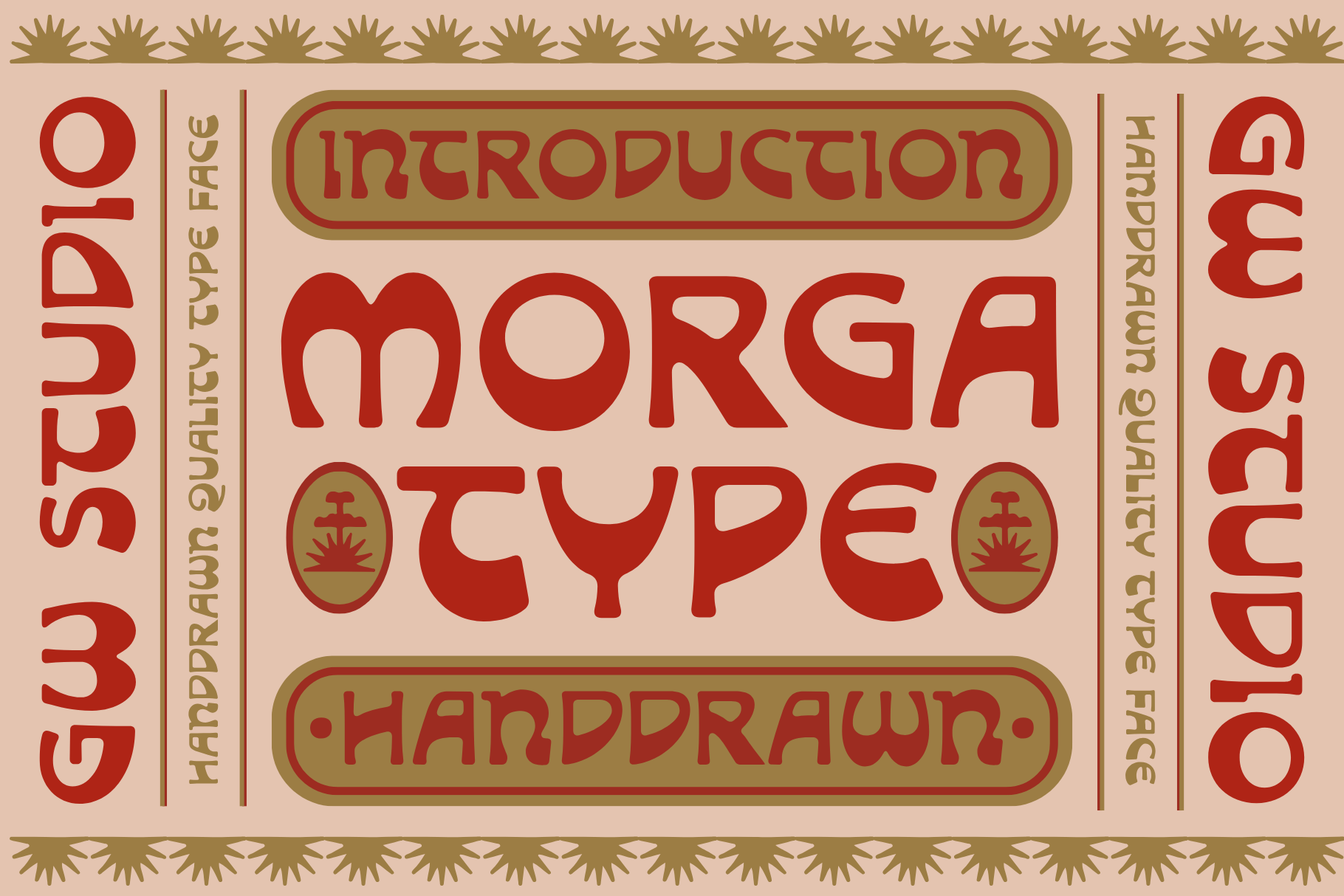
Morga | Handdrawn Typeface
Morga is a playful handcrafted display typeface designed to add warmth, personality, and charm to your creative work. Featuring bold organic shapes, smooth curves, and unique letterforms, it creates a friendly yet eye-catching appearance. Perfect for branding, logos, packaging, posters, social media graphics, editorial headlines, children's products, café menus, and merchandise, Morga helps your designs stand out with a distinctive handmade feel. The font includes uppercase letters, numbers, punctuation, and multilingual support, making it versatile for both print and digital projects. Morga is an excellent choice for designers seeking a fun, memorable, and expressive display font with timeless retro-inspired character.